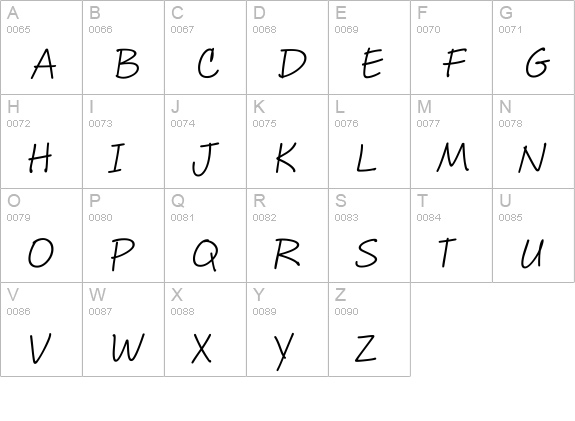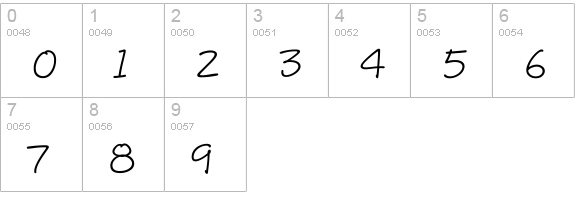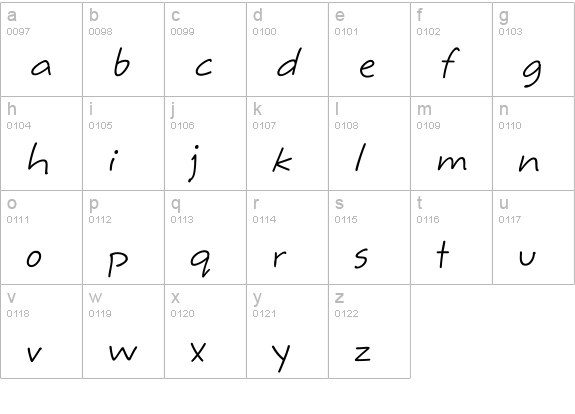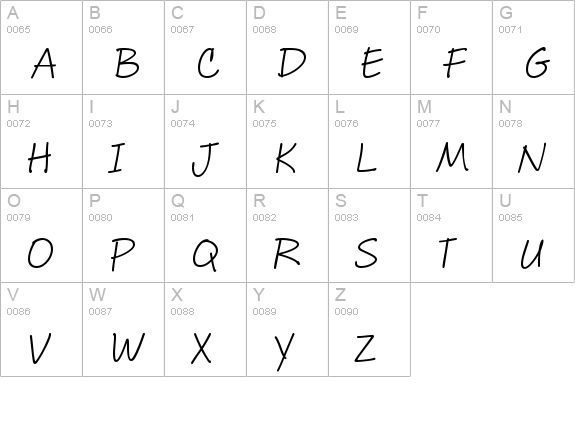
MaritaTextBookHMK Font Details
MaritaTextBookHMK is a stunning font that combines elegance and simplicity with a touch of sophistication. Its clean lines and perfectly proportioned letterforms make it ideal for all kinds of design projects, from logos and branding to editorial layouts and website designs. This font is not only visually appealing but also highly legible, ensuring that your message is easily conveyed to your audience. Its versatility allows it to be used in both professional and personal contexts, making it a must-have for any designer or creative individual. One of the best features of MaritaTextBookHMK is that it is available for free! Yes, you heard it right. This font is freely available to download at FontsMarket.com, a trusted platform for high-quality fonts. You no longer have to worry about breaking the bank to get access to a premium font that enhances your designs. Whether you are a professional designer looking to elevate your projects or a hobbyist seeking to add a touch of finesse to your creations, MaritaTextBookHMK is the perfect choice. Its timeless appeal and effortless style will leave a lasting impression on your audience. So why wait? Head over to FontsMarket.com and grab your free download of MaritaTextBookHMK today. Unleash your creativity and let this font elevate your designs to new heights.